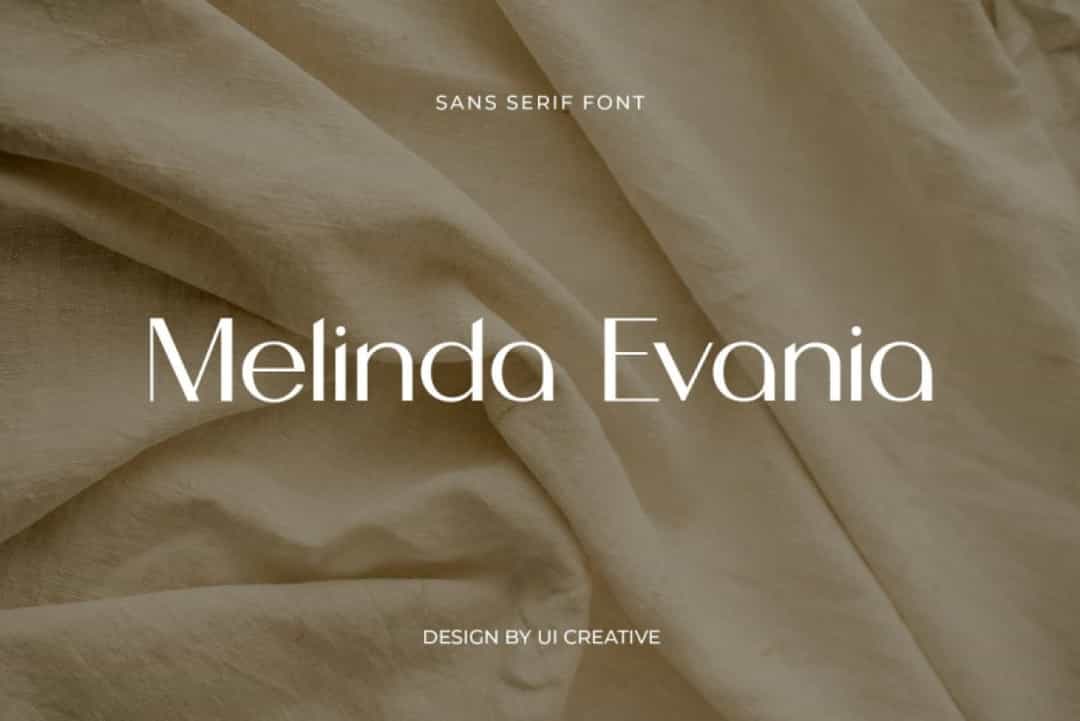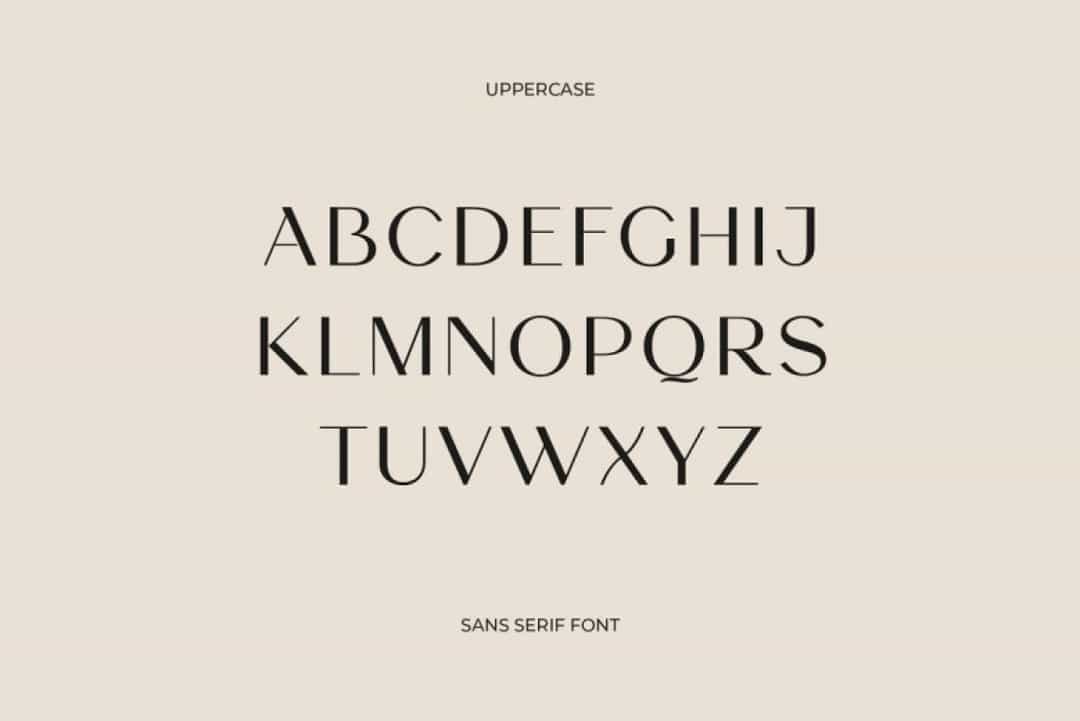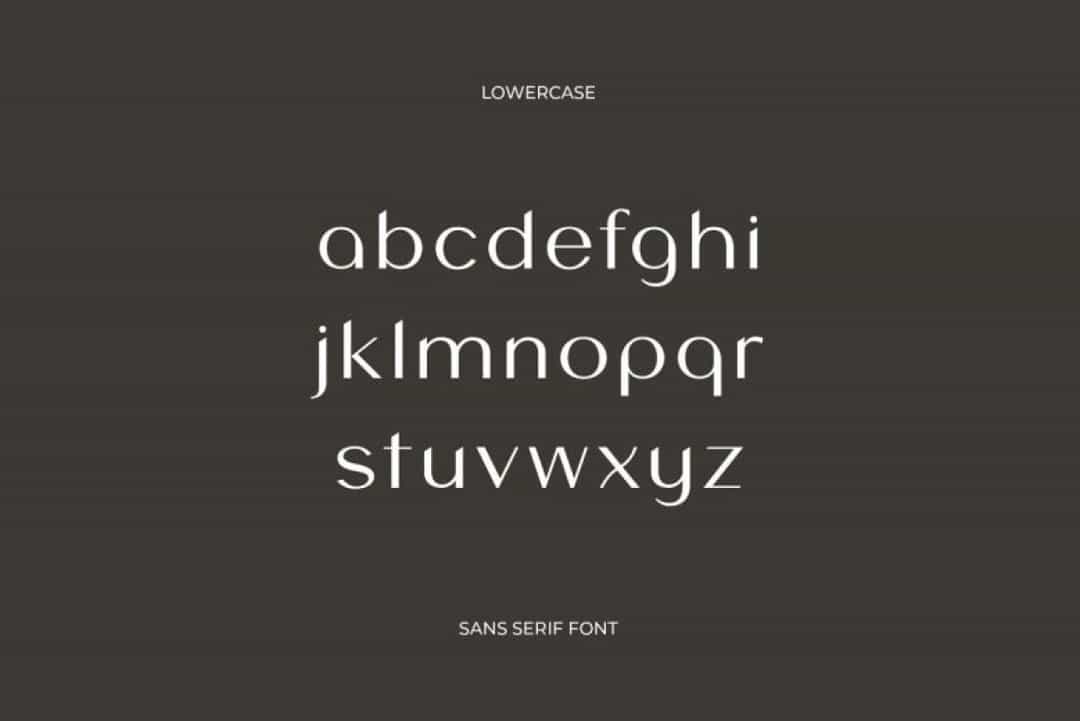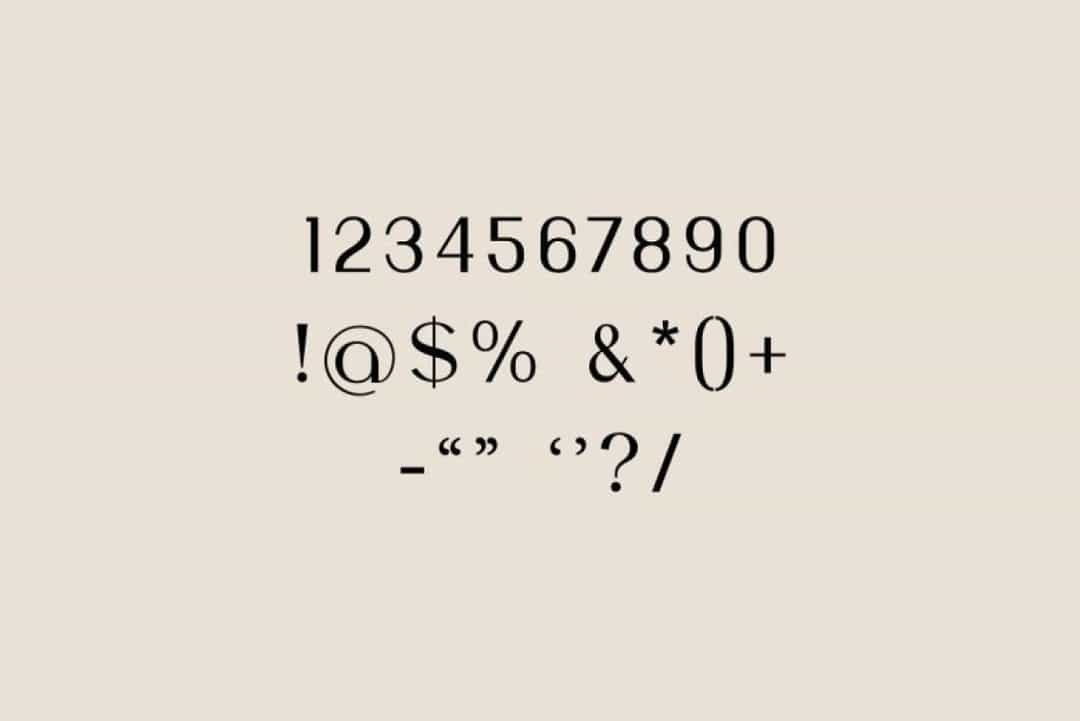
Melinda Evania can be described as a modern sans-serif typeface that is elegant, beautiful, modern, and sophisticated. It’s suitable for a range of projects such as logo design, signature creation, stationery wedding invitations, typography quotes magazine covers or book covers, headers for websites or clothing packaging designs and branding among others.